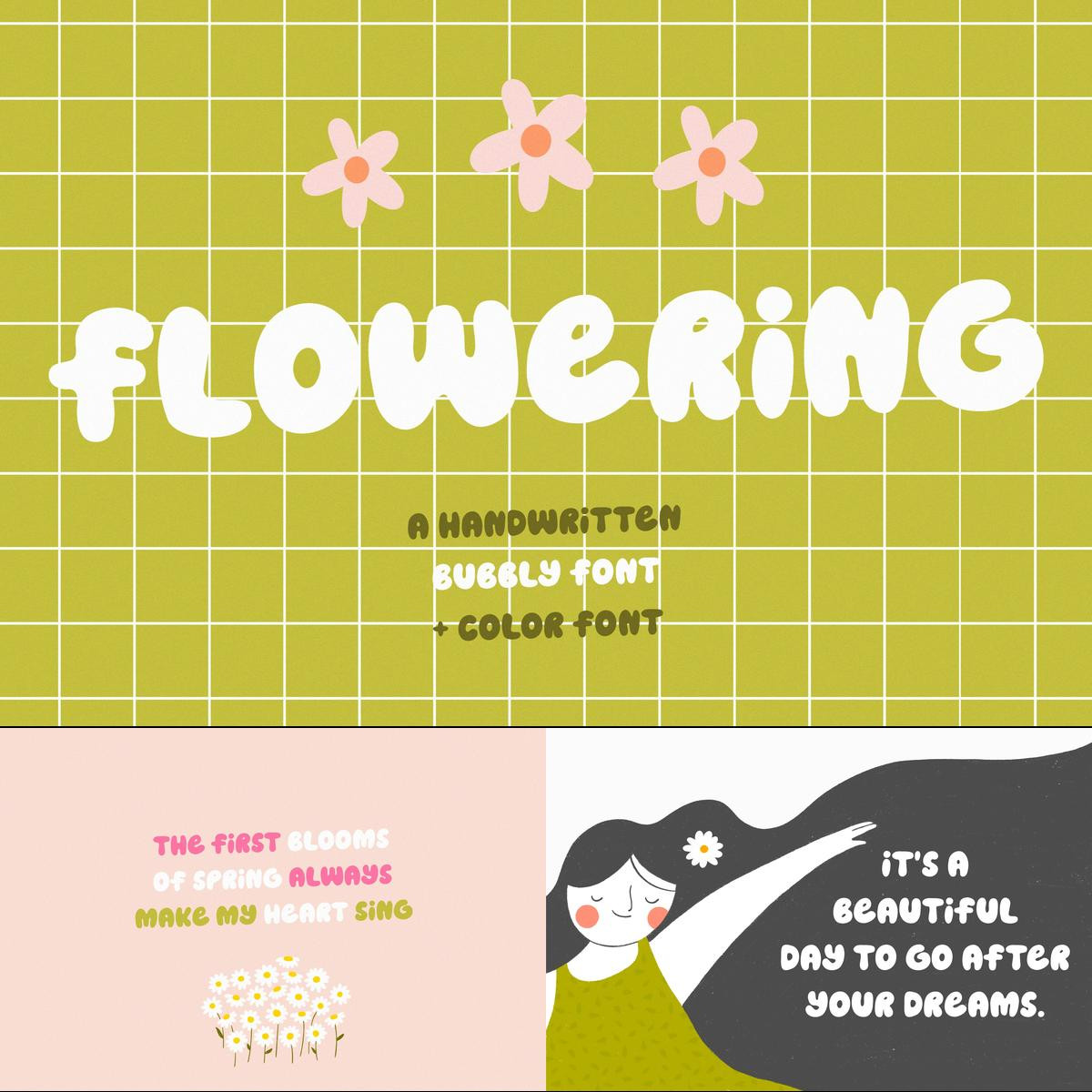
Flowering - handwritten bubbly font. Perfect for quotes, greeting cards, invitations, posters, business cards, presentations and more. **You will get:**